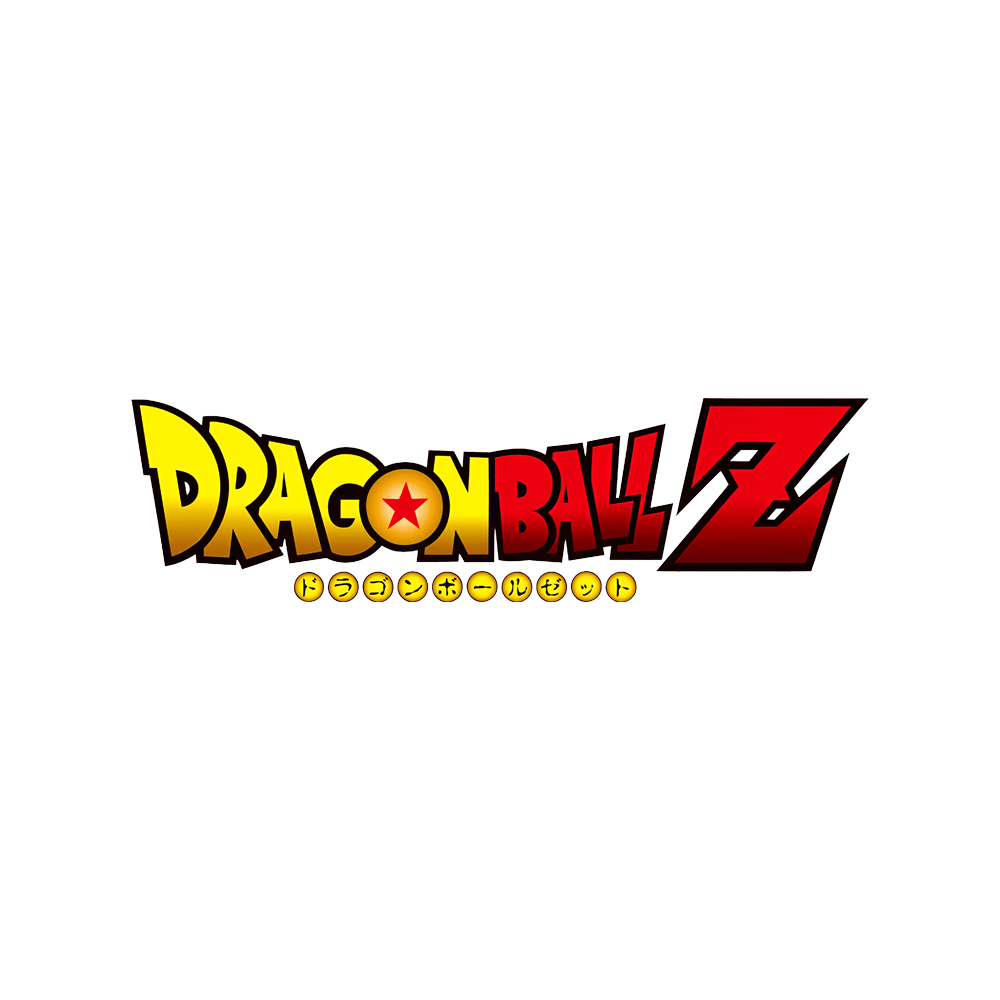
Dragon Ball Z Font
ActionDragon Ball Z is a Japanese animated television series produced by Toei Animation. The anime was broadcast on Fuji TV from 1989 to 1996. Dragon Ball Z continues Son Goku's adult life adventures as he defends the Earth from androids, aliens, and magical creatures.
A font called Saiyan Sans, created by Ben Palmer, was designed to resemble the Dragon Ball Z logo. It is available in three different weights and includes only uppercase letters. The font is licensed as 100% free.